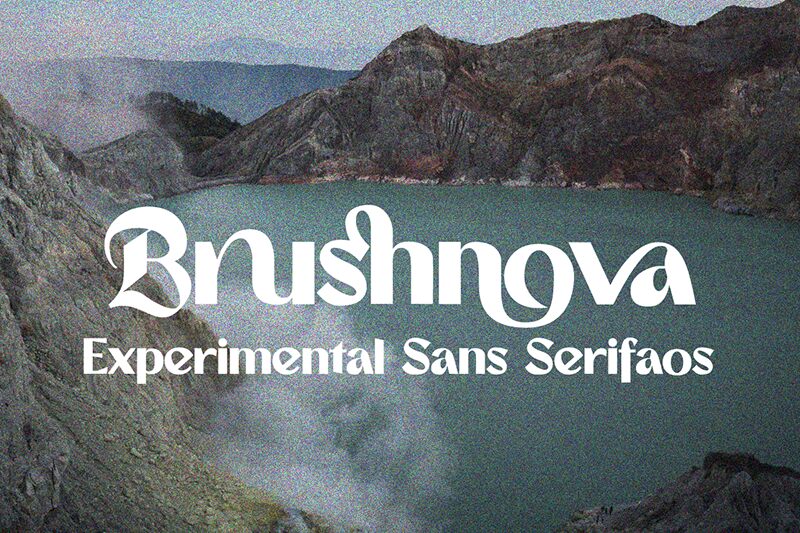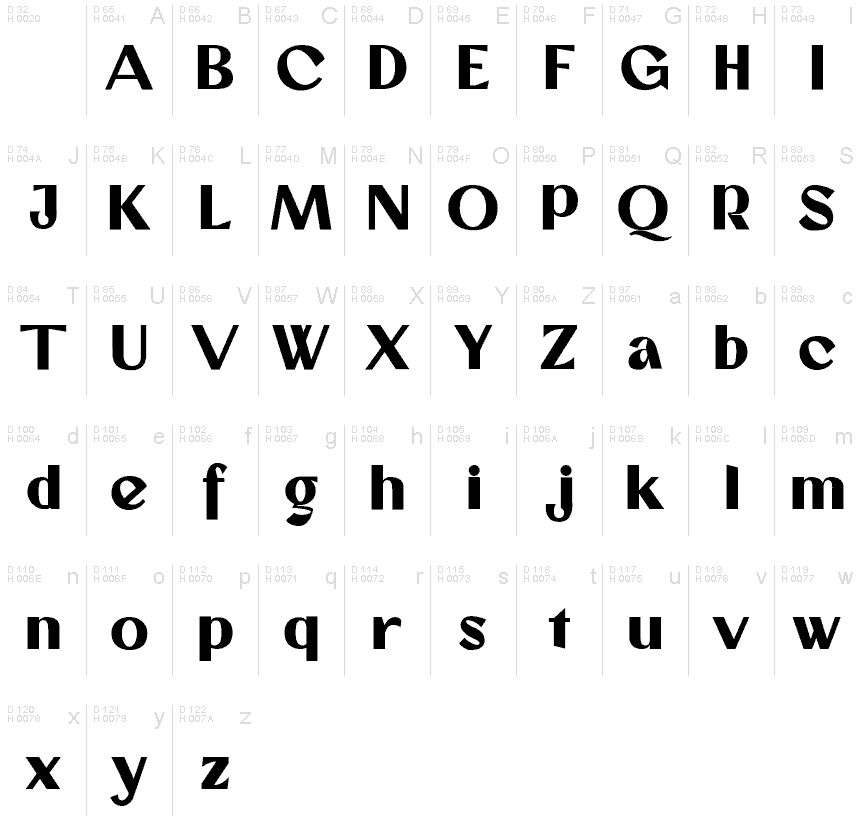
Brushnova Demo
Brushnova font is an elegant marker brush font whose free version uses gives preference for personal designs. This modern all-caps type design features 91 distinct characters through rough textured curvy outlines. Integrating this handwritten display typeface in your works will provide them with a modern aesthetic, unique look, and balanced proportions suitable for various industry verticals.
Integrate Brushnova into badges, official seals, product packaging designs, book covers, posters, music album covers, apparel designs & elements. Be present on virtual platforms by using Brushnova in your visual social media posts and stories like those of Instagram and Snapchat.
Lettercorner Studio